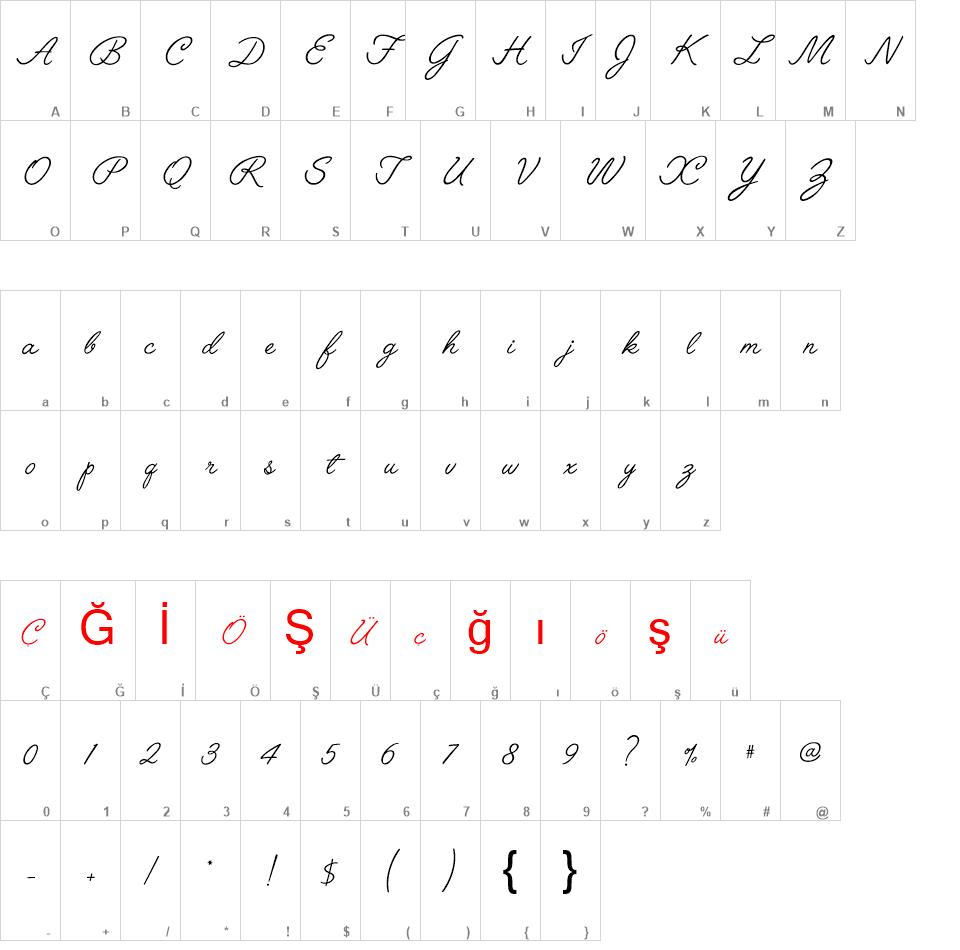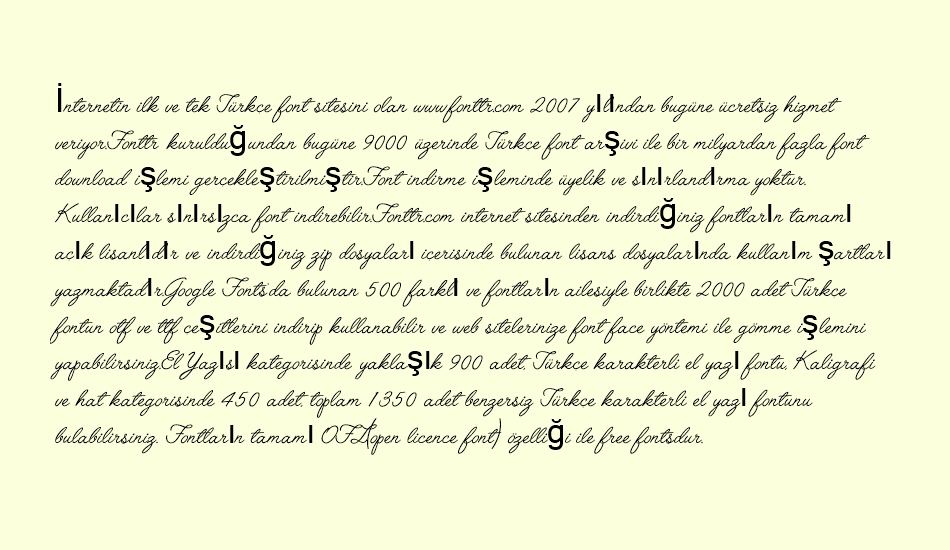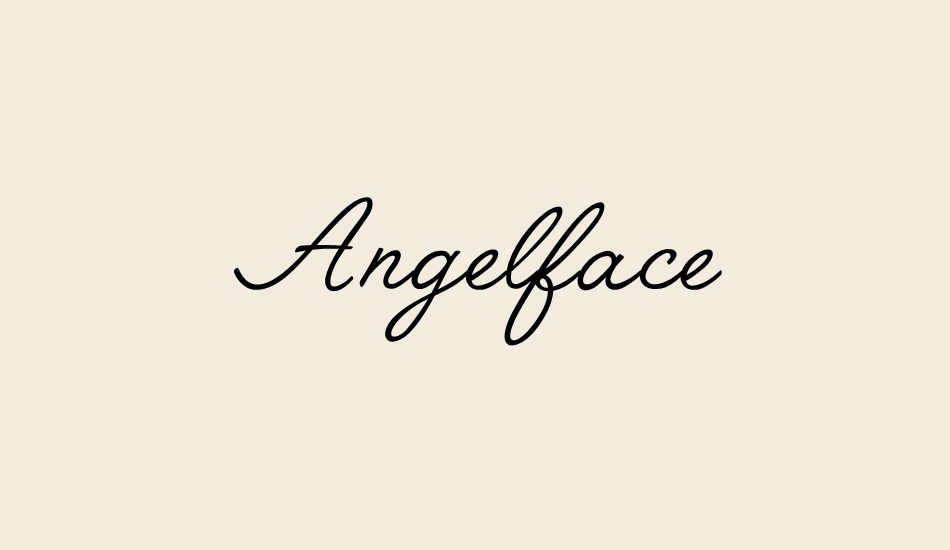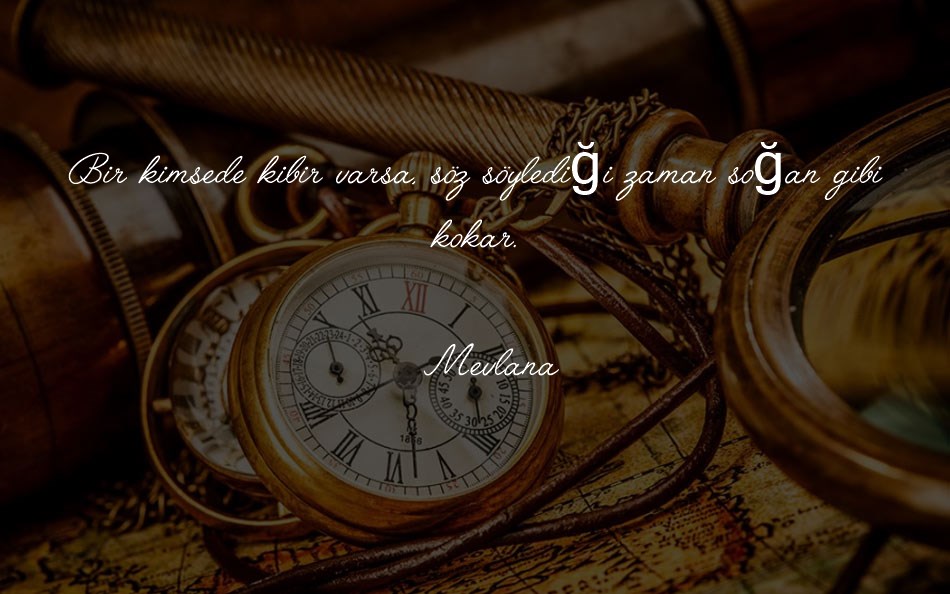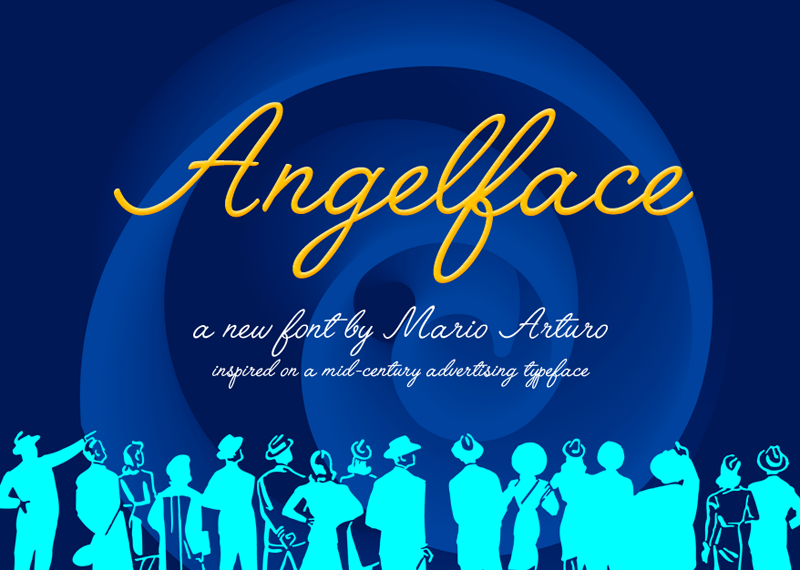
Angelface font
Angelface
I did not design this font completely, is loosely based on Lariata Typecafe. Traced from the 1993 edition of Novum Press book Schreibschriften/Script Types, compiled by Michael Rau & Rosemarie Kloos-Rau. I did add the punctuation marks for the book only had letters and numbers. Freeware for personal use. If it is for commercial use then this font is donationware through PayPal: turoturom@yahoo.es.